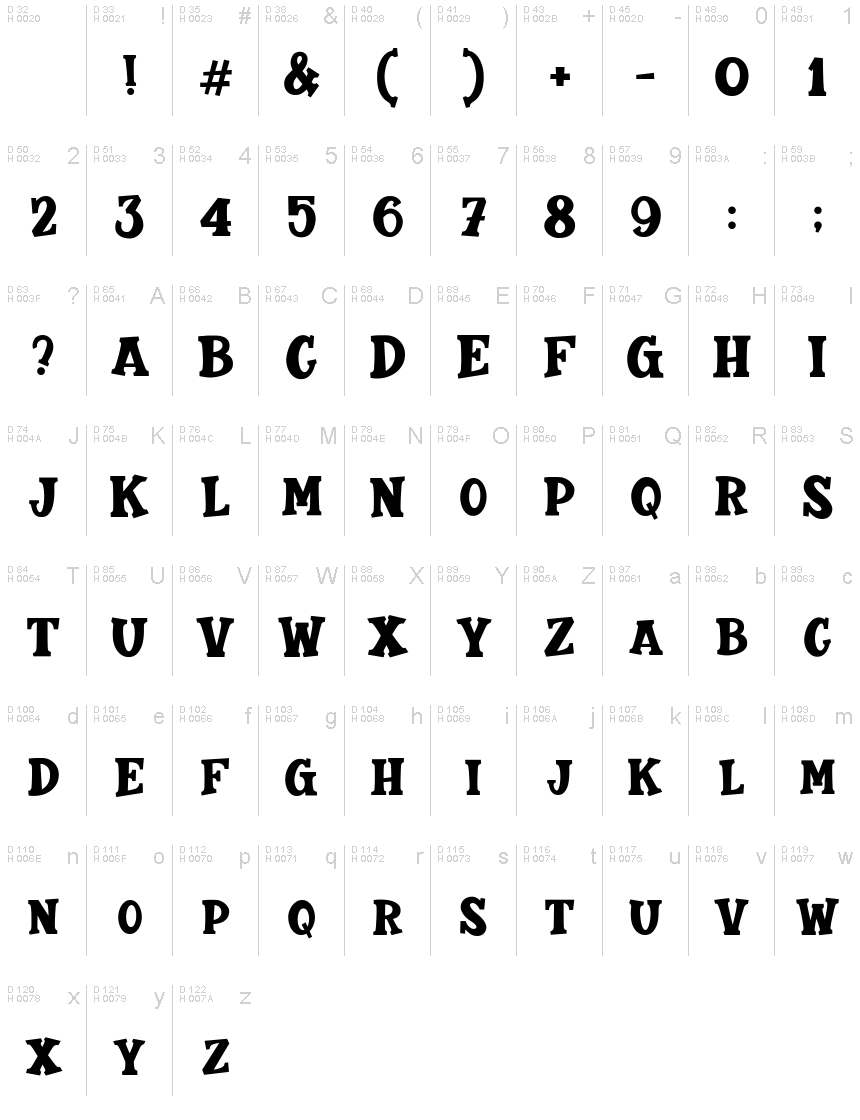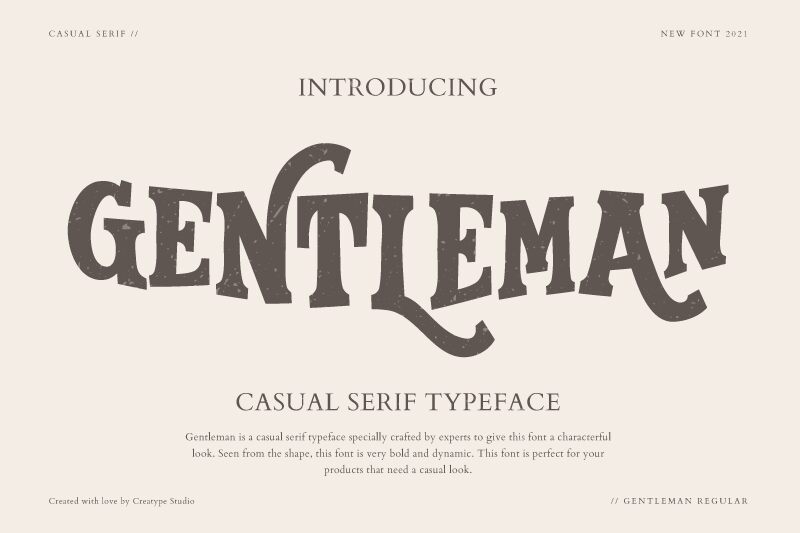
Gentleman Regular
Gentleman font designed by Creatype Studio is display bold cartoon typeface. The free font features elegant uppercase characters with prominent serif ends, displaying a visual that is both formal and beautiful. Thickness and rigidness are clearly seen in the structure of the letters which comes across in an incredibly vintage look.
Set a lovely mood to your projects whether online or printed. This font can end up being exactly what you need for your websites (logos & headings), card designs, labels, packaging ideas, posters, social media advertising campaigns & lots more.